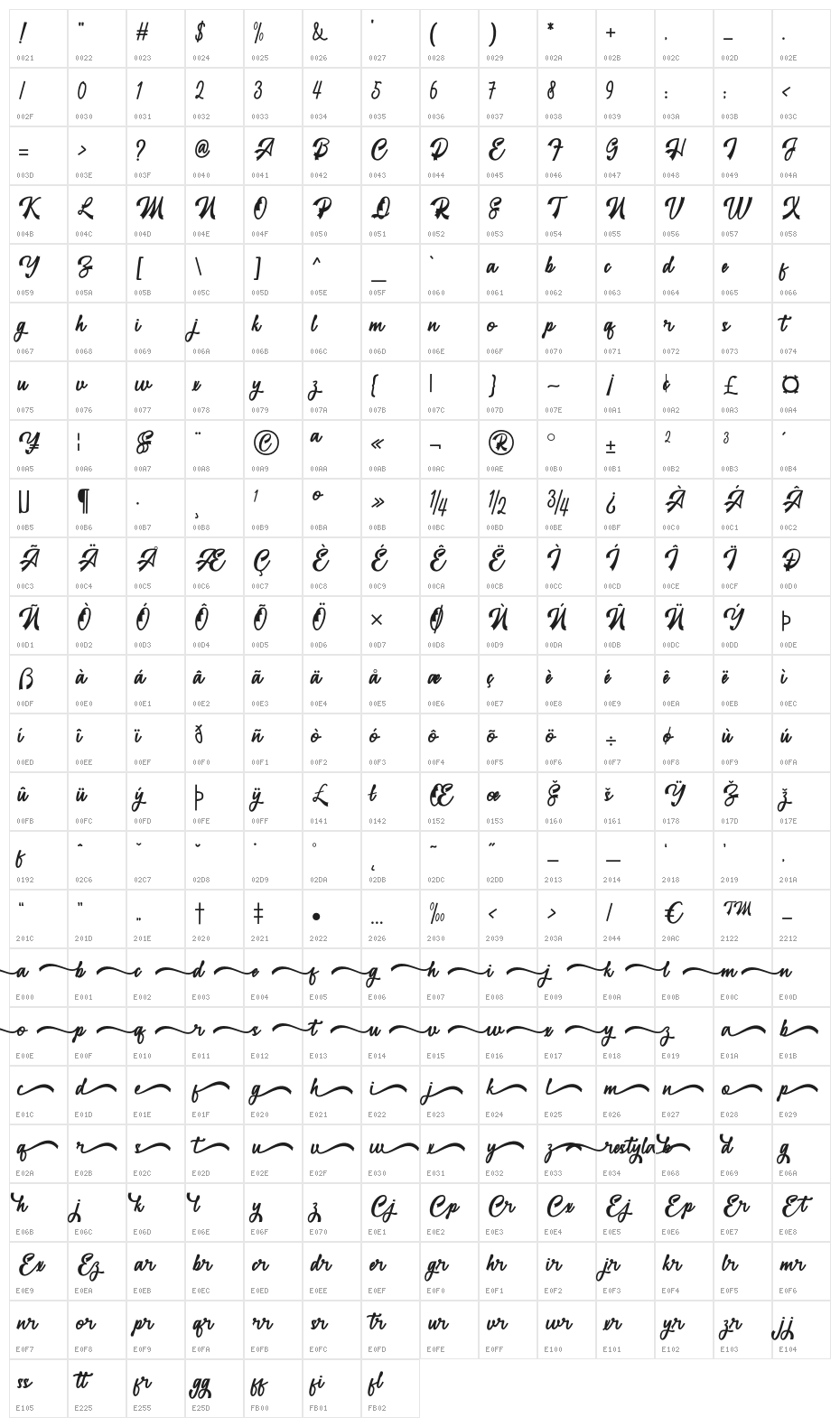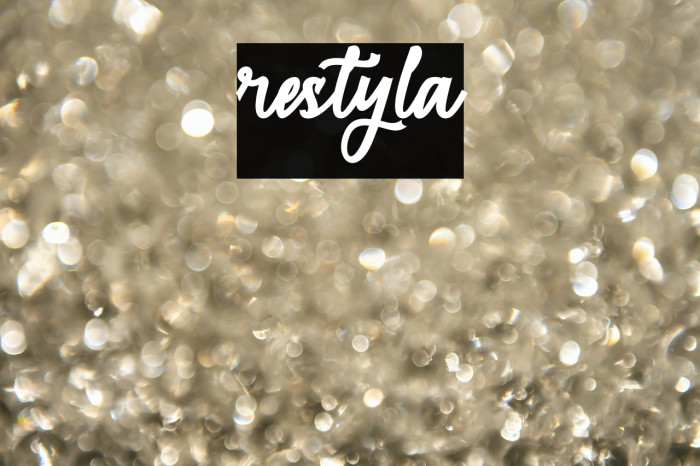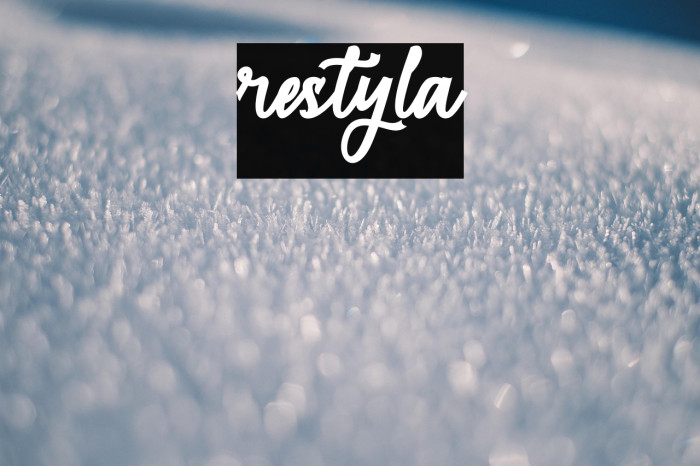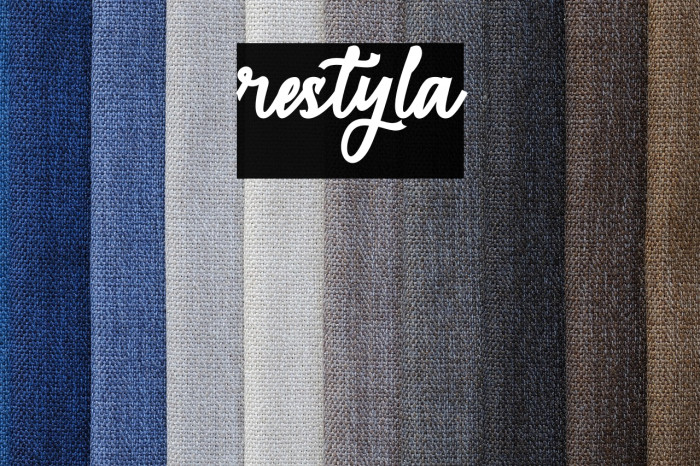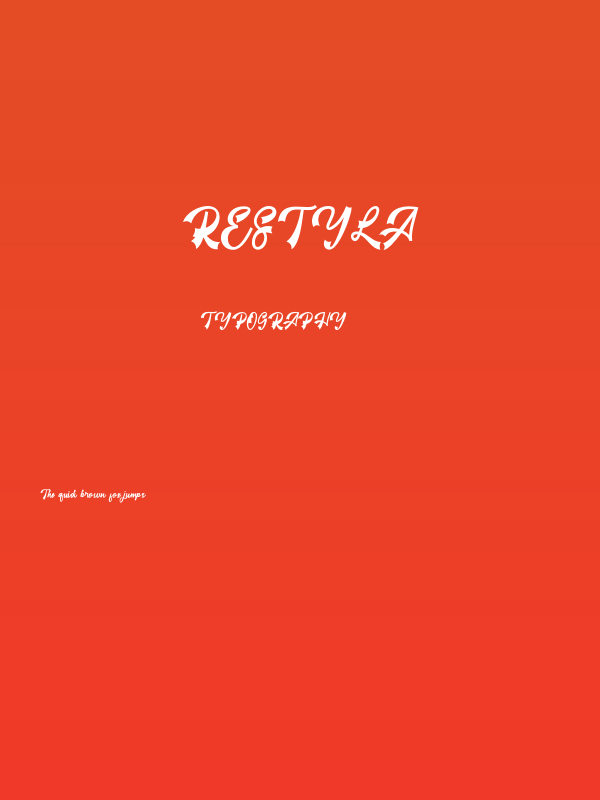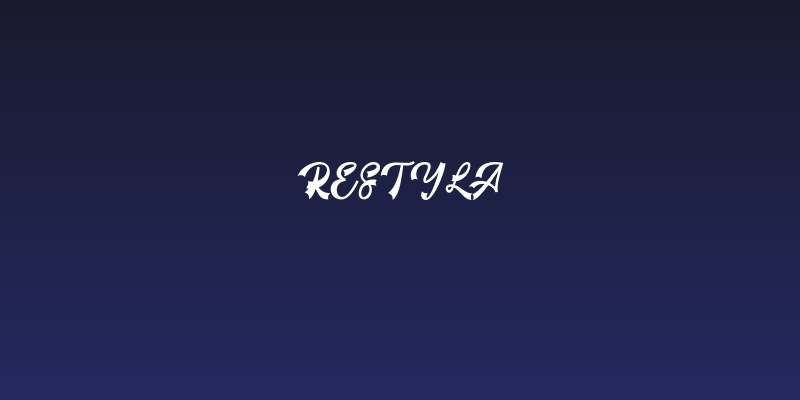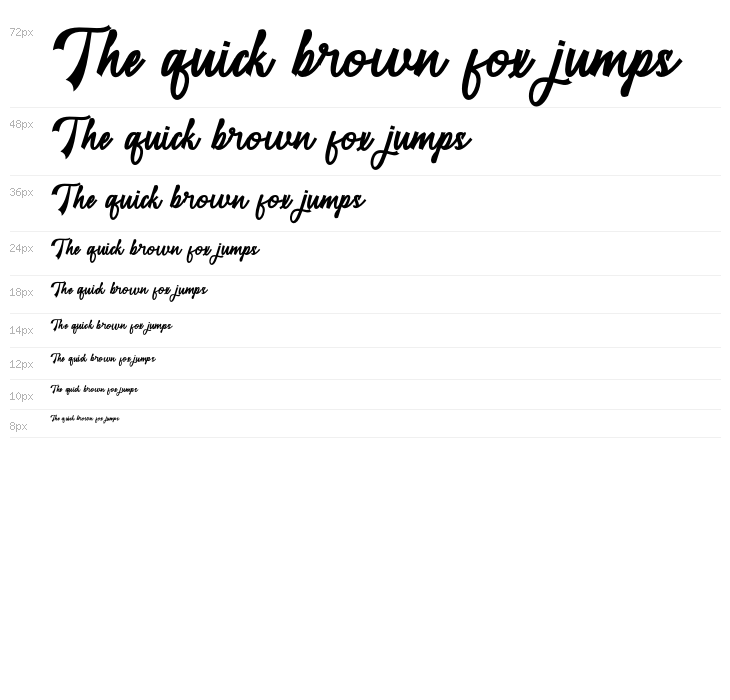
This font features a dynamic and expressive script style with a bold presence. The uppercase letters are characterized by dramatic flourishes and sharp angles, giving them a striking appearance. The lowercase letters maintain a fluid and connected script form, enhancing the overall elegance. Numbers and special characters are designed to match the bold and decorative style, ensuring consistency across all elements. The font's unique style makes it suitable for projects that require a touch of sophistication and flair.
| Proposed Projects | Ideal for wedding invitations, branding, logo design, and decorative headings. |